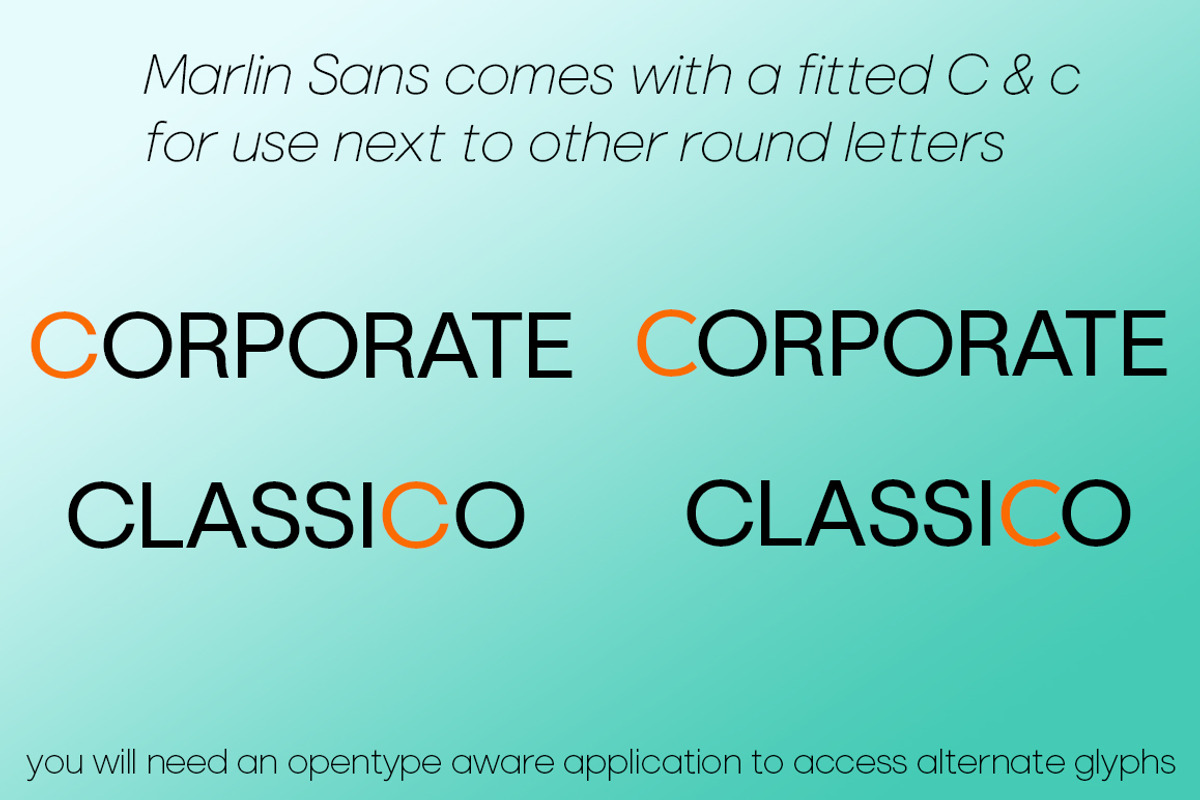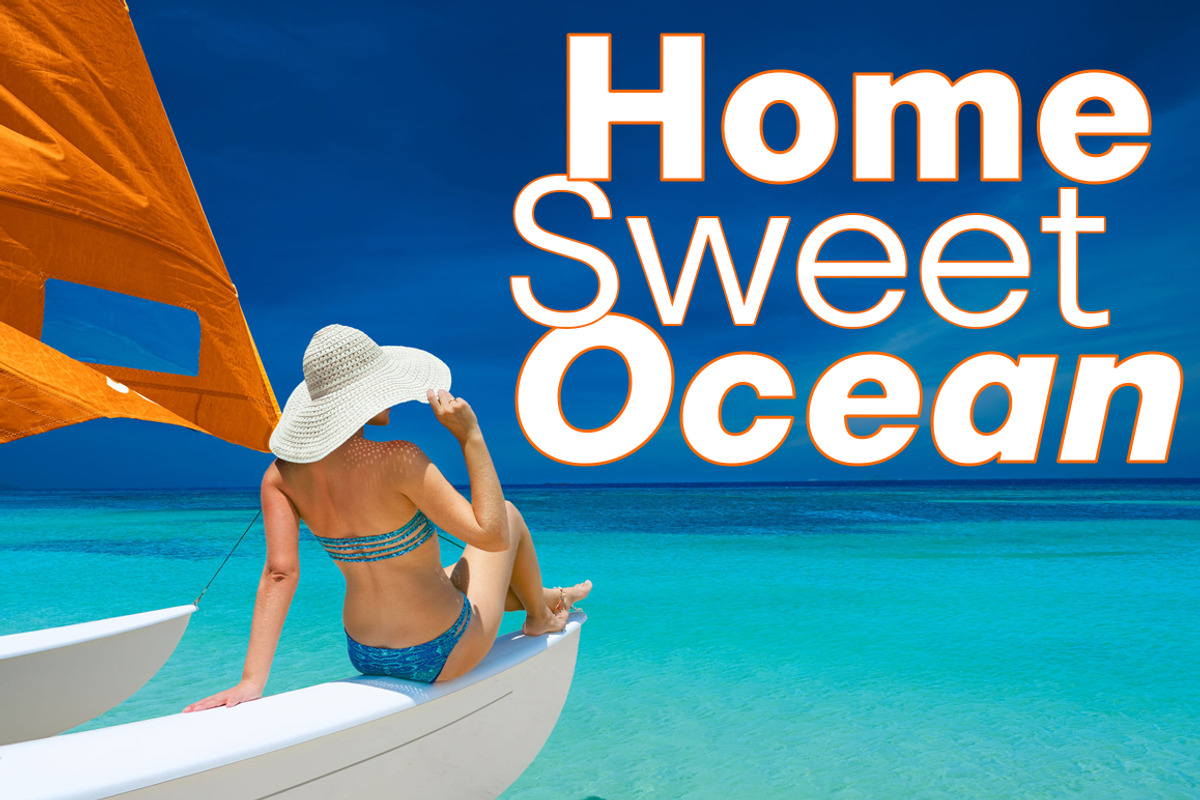
Marlin Sans Slant
Marlin Sans Slant is an italic set at a 6° slant which is half of the regular 12° italicsfonts include accented characters for European countries.
Marlin Sans contains alternate glyphs, you will need an Opentype aware application such as Adobe Illustrator and Photoshop to access alternates, Windows character map can not be used to access alternate glyphs.